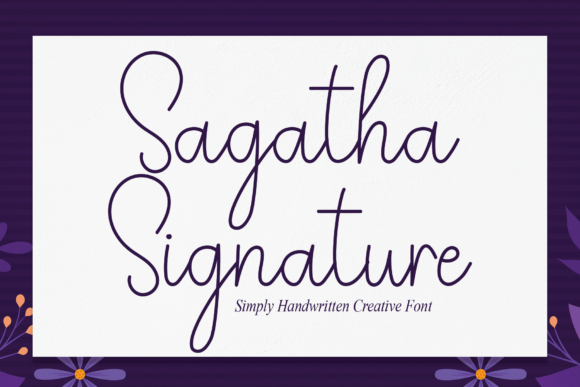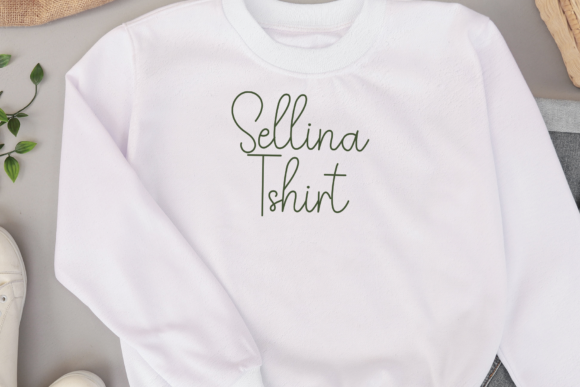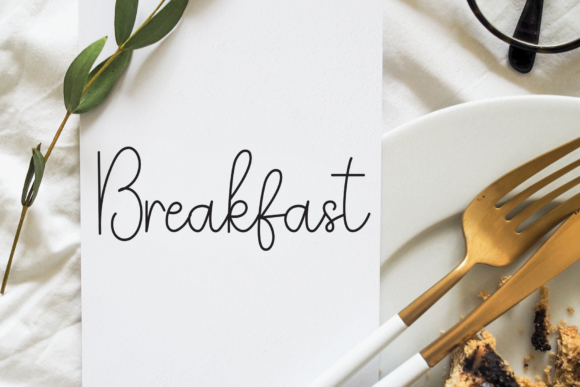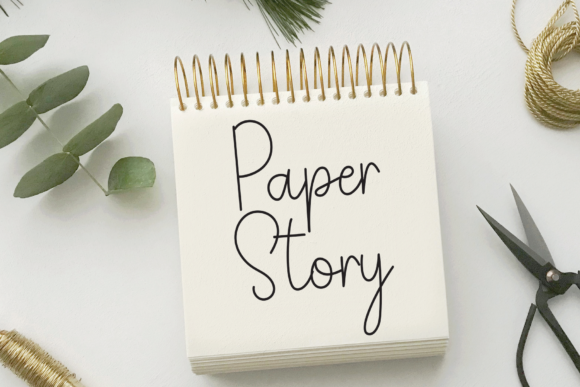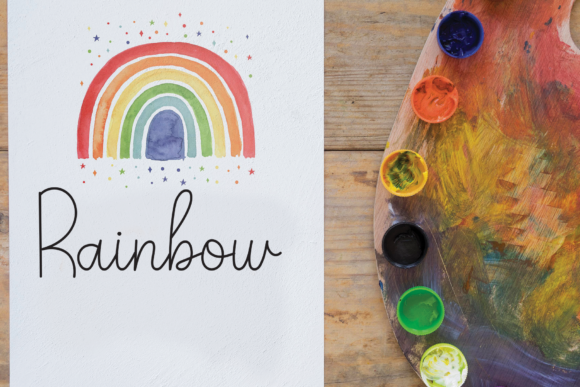
Sagatha Signature Font
About Sagatha Signature Font
Sagatha Signature stands as a testament to the artistry and craftsmanship behind script fonts, offering a delightful handwritten style meticulously crafted to embody elegance and charm. Each stroke and curve of this sweet script font reflects the careful attention to detail poured into its creation, ensuring that it delivers the expected results with grace and finesse.
What sets Sagatha Signature apart is its beautiful and balanced character, meticulously designed to fit seamlessly into a large design pool. Whether adorning wedding invitations, branding materials, posters, or social media graphics, this font adds a touch of personality and warmth to any project it graces. Its versatility knows no bounds, making it an indispensable tool for designers seeking to elevate their creations with a unique and charming script.
The beauty of Sagatha Signature lies not only in its aesthetic appeal but also in its functionality. Crafted with great care, it offers both beauty and readability, ensuring that messages are conveyed with clarity and style. This makes it an ideal choice for a wide range of applications, from elegant branding projects to eye-catching advertisements and everything in between.
In the realm of branding and advertising, Sagatha Signature shines as a beacon of creativity, infusing logos, packaging, and promotional materials with its distinctive handwritten charm. Its sweet demeanor adds a personal touch that resonates with audiences, leaving a lasting impression on consumers and clients alike.
Photographers and creatives also find inspiration in Sagatha Signature, using it to add a touch of whimsy and character to their work. Whether used for watermarks, captions, or overlays, its handwritten style enhances the visual storytelling, elevating images and designs with its delightful presence.
Special events become even more memorable with Sagatha Signature, as it lends an air of elegance and sophistication to invitations, stationery, and signage. Its sweet script sets the perfect tone for weddings, parties, and other celebratory occasions, capturing the joy and romance of the moment with its charming demeanor.
Overall, Sagatha Signature is more than just a font; it’s a versatile and expressive tool that adds warmth, personality, and style to any design project. With its meticulous craftsmanship and delightful handwritten charm, it continues to be a beloved choice among designers and creatives seeking to create beautiful and impactful typography.